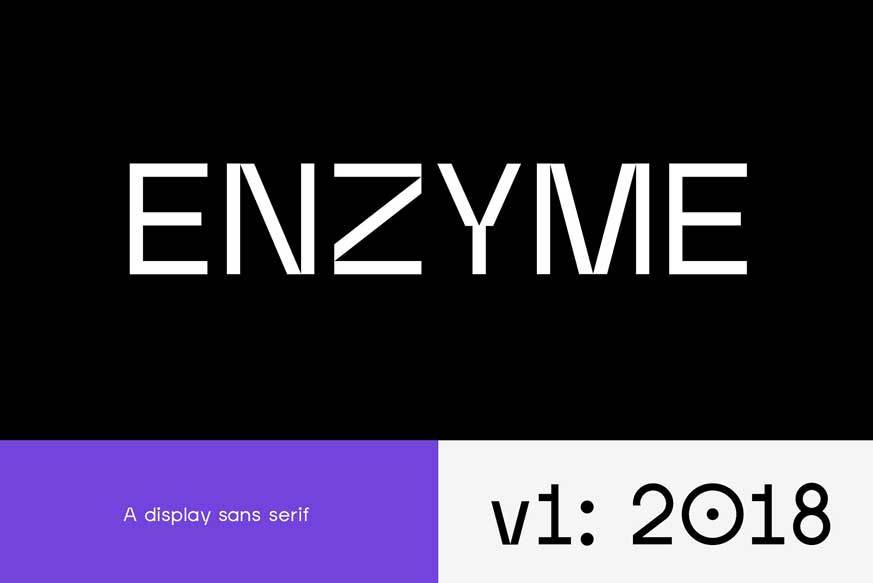
Enzyme Display Typeface
Enzyme Display Typeface is a new, contemporary sans-serif display font that is can be used for posters, editorial layouts and logos to give your work a unique, modernist edge.
It comes in one weight, with 218 glyphs for multi-lingual support as well as added flexibility through the use of alternate characters.